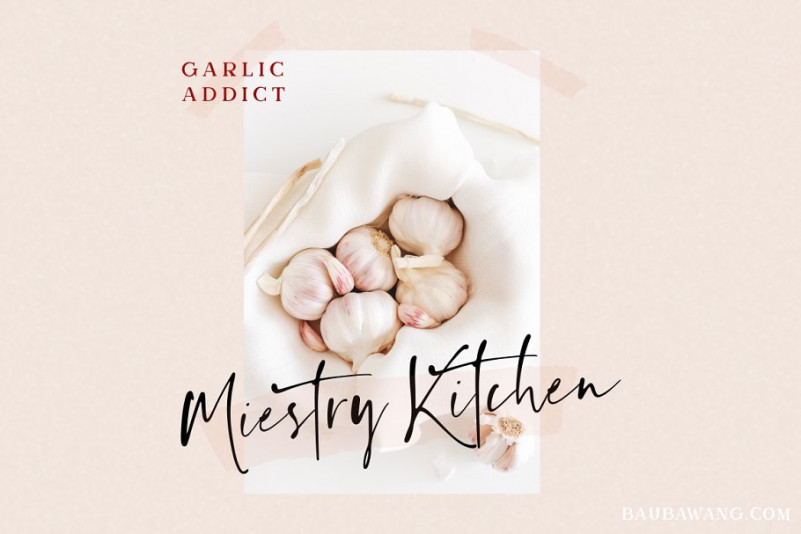
Ragland Handwritten Font
Ragland Handwritten Font – Free Demo
Say hello to the Ragland Font! This is a signature and sophisticated style font. It is slender, feminine and classy, while still maintaining a friendly feel. It is designed and shared by Sronstudio. Ragland Handwritten Font is a natural handwritten font, this font Is perfect for logo, invitation, stationery, wedding designs, social media posts, advertisements, product packaging, product designs, label, photography, watermark, special events or anything.